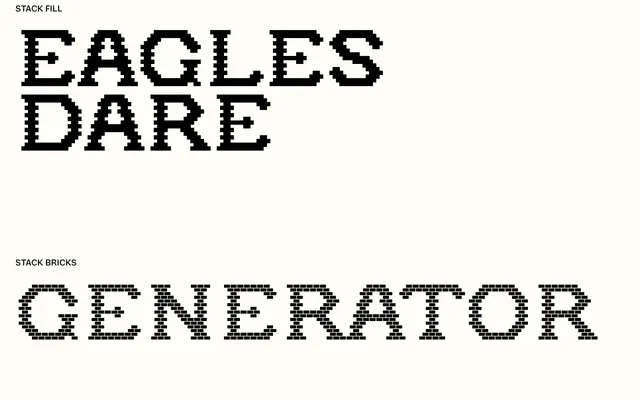
A chromatic display family built from five layerable fonts modelled on the brick-and-mortar lettering found on early twentieth-century industrial chimneys.
Each of the five fonts in the family corresponds to a structural layer: fill, bricks, mortar bricks, courses, and mortar courses, reproducing the 15-course grid of masonry lettering developed from over 150 archival photographs and two dozen engineering drawings. The fonts work horizontally and vertically, with OpenType vertical forms available via Stylistic Set 2, allowing signs, stacks and typographic structures to run in either direction. Proportions and mortar-joint thickness have been optically adjusted for screen and print, extending the system's utility beyond purely decorative applications.
Stack is a display typeface built as a system of layerable fonts mimicking the brick-and-mortar construction of early twentieth-century industrial chimney lettering, making it firmly a display type with a highly specific structural concept.